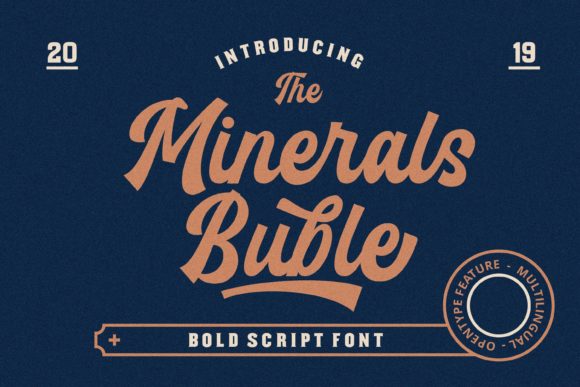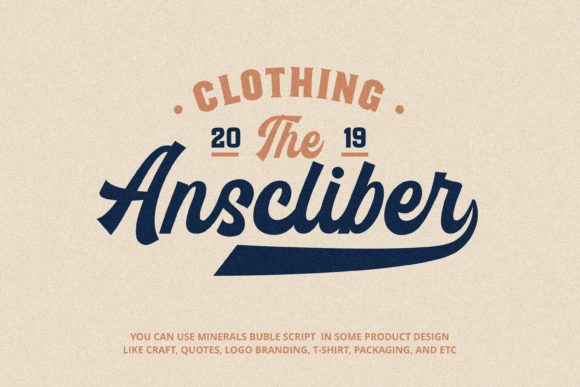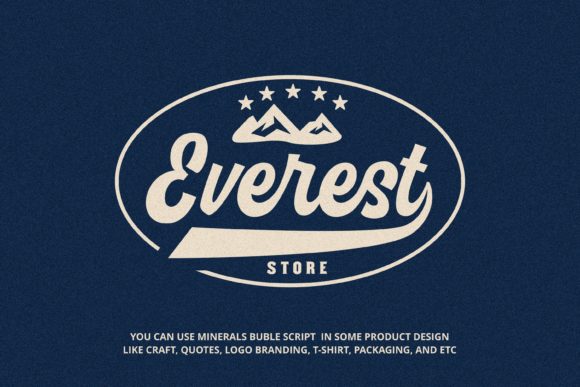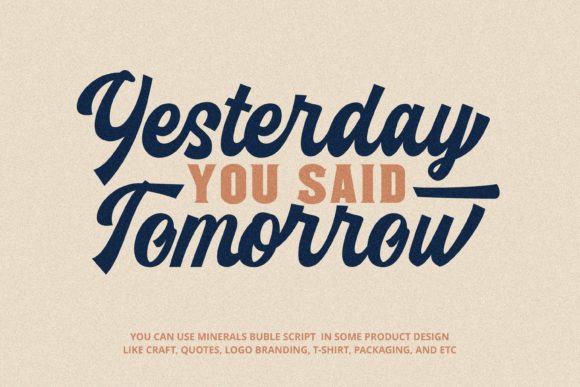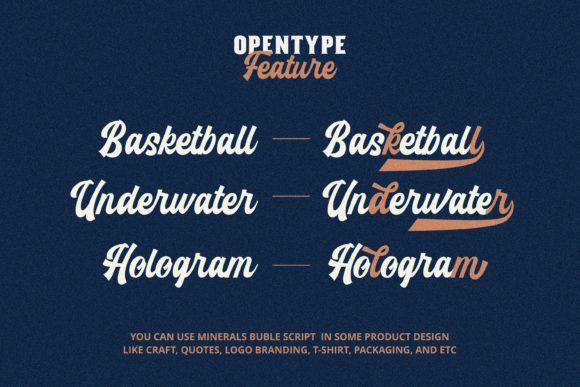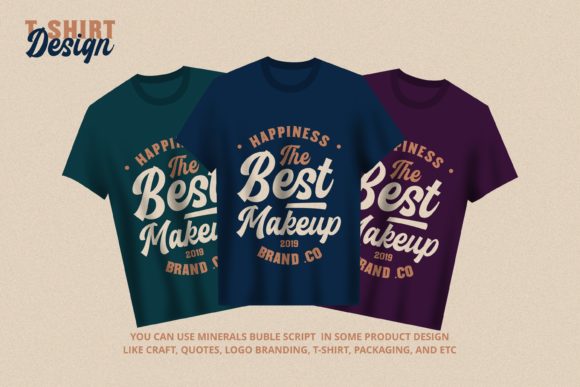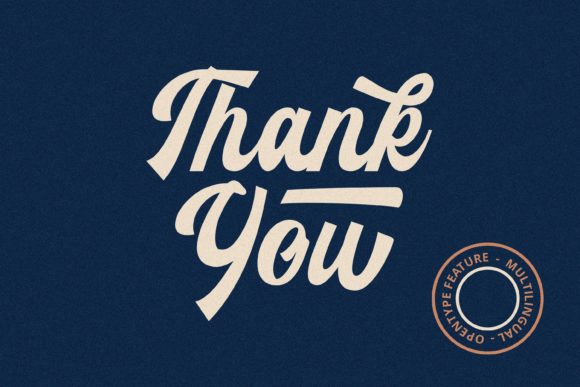
Minerals Buble Font
About Minerals Buble Font
Minerals Buble is a stunning script font with a cool vibe. Use it to turn any design project into an eye catcher!